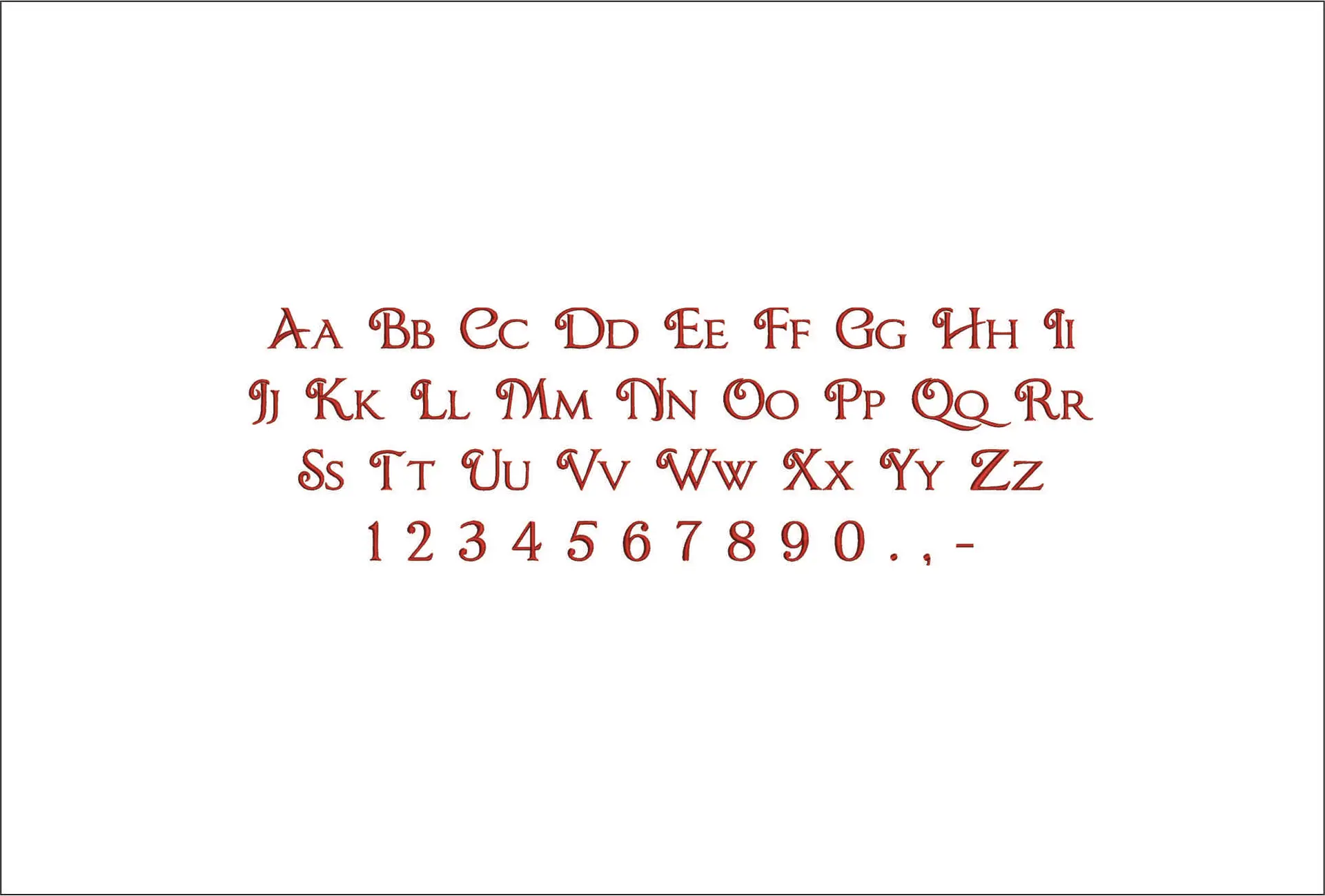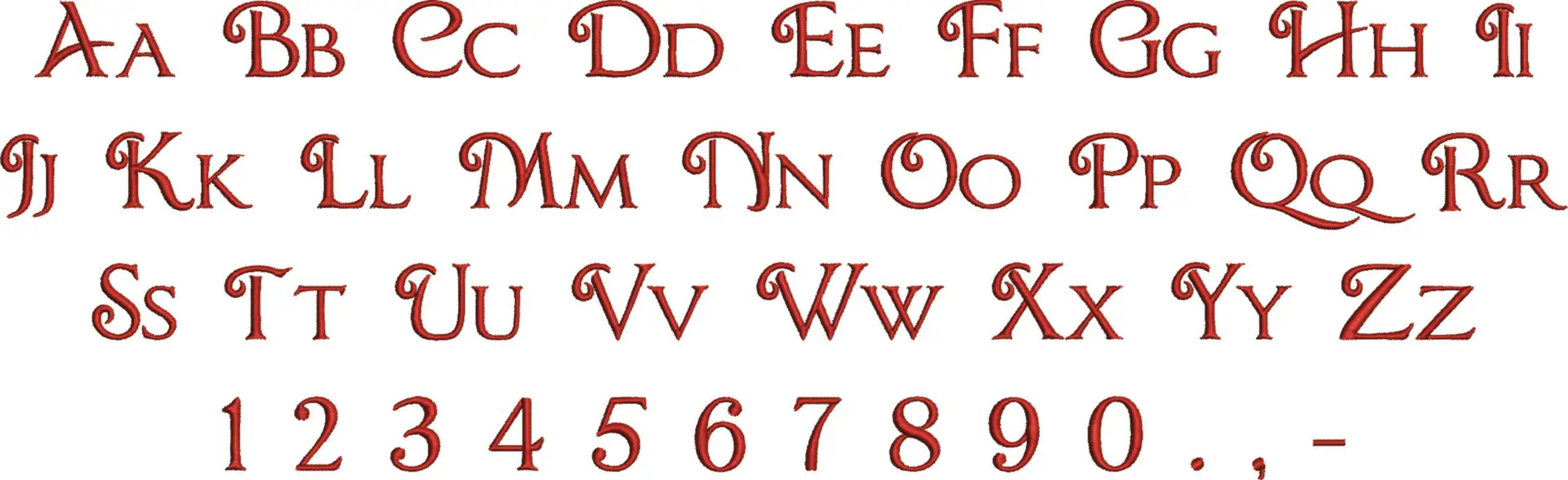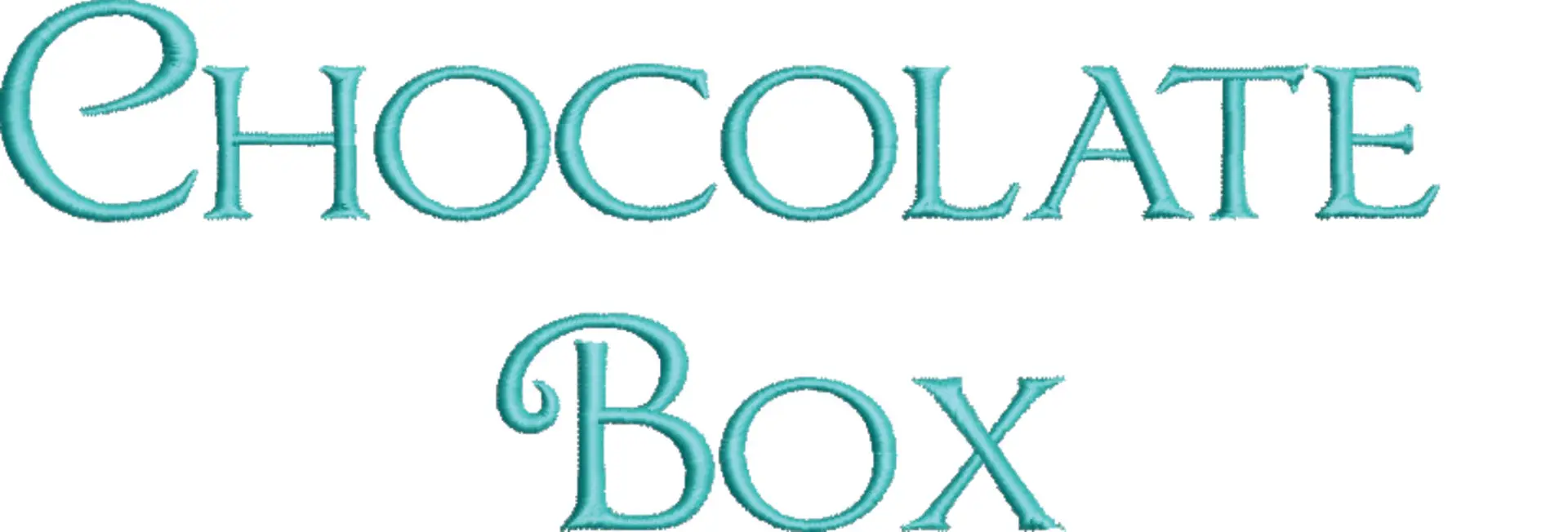
A decorative serif embroidery alphabet with curled swashes, ideal for elegant names, monograms and standout wording on gifts and clothing.
Add a sweetly ornate finish to names, monograms and short phrases with this Chocolate Box embroidery font set. The lettering has a decorative serif style with curled swash details that give each character a dressed-up, slightly vintage feel without becoming fussy. You get a full working alphabet with uppercase and lowercase letters, numbers and punctuation, so it suits makers who want one consistent look across initials, dates and wording.
This style works especially well on keepsake items such as linen napkins, cotton hand towels, quilt labels, pyjama pockets and baby blankets, where the shaped serifs can do the visual work of a flourish. It also has enough personality for sweatshirt fronts, tote bags and dressing gown cuffs when you want text to feel more considered than a plain block font. The sample shown in turquoise and red makes the curves easy to see, and the letterforms read as elegant and decorative rather than overly formal.